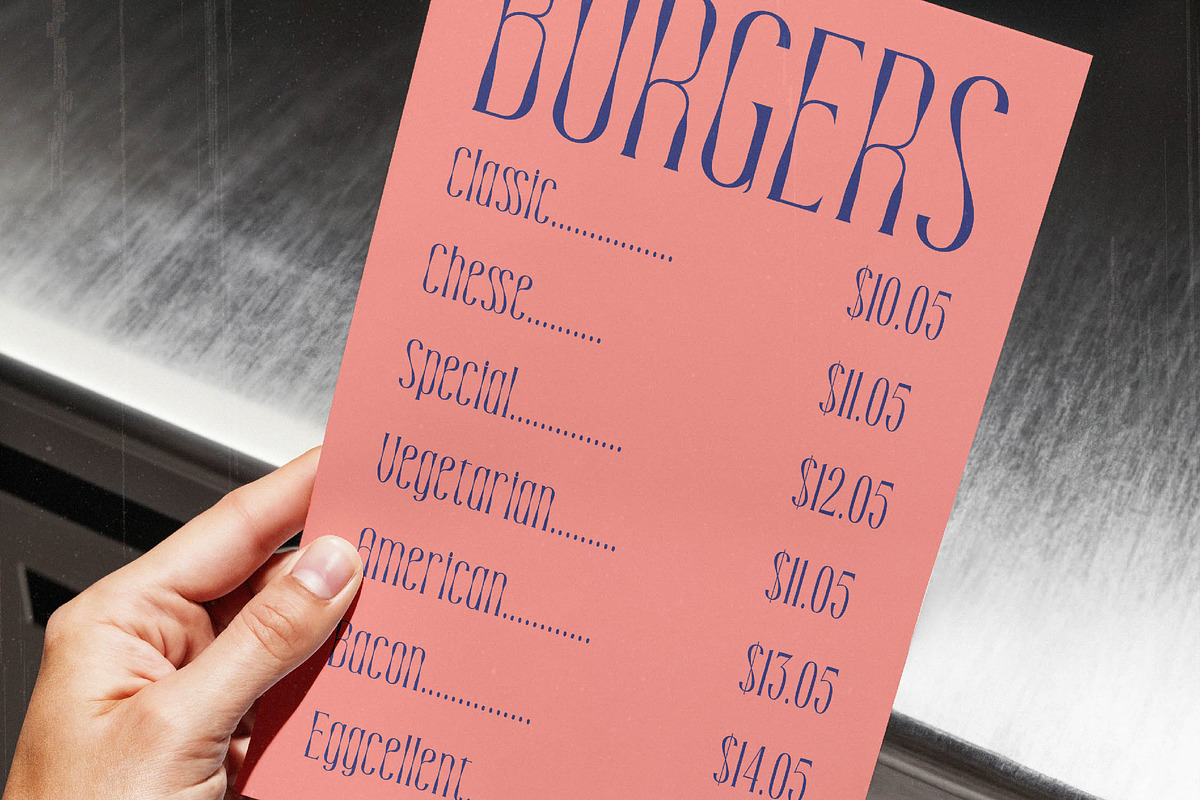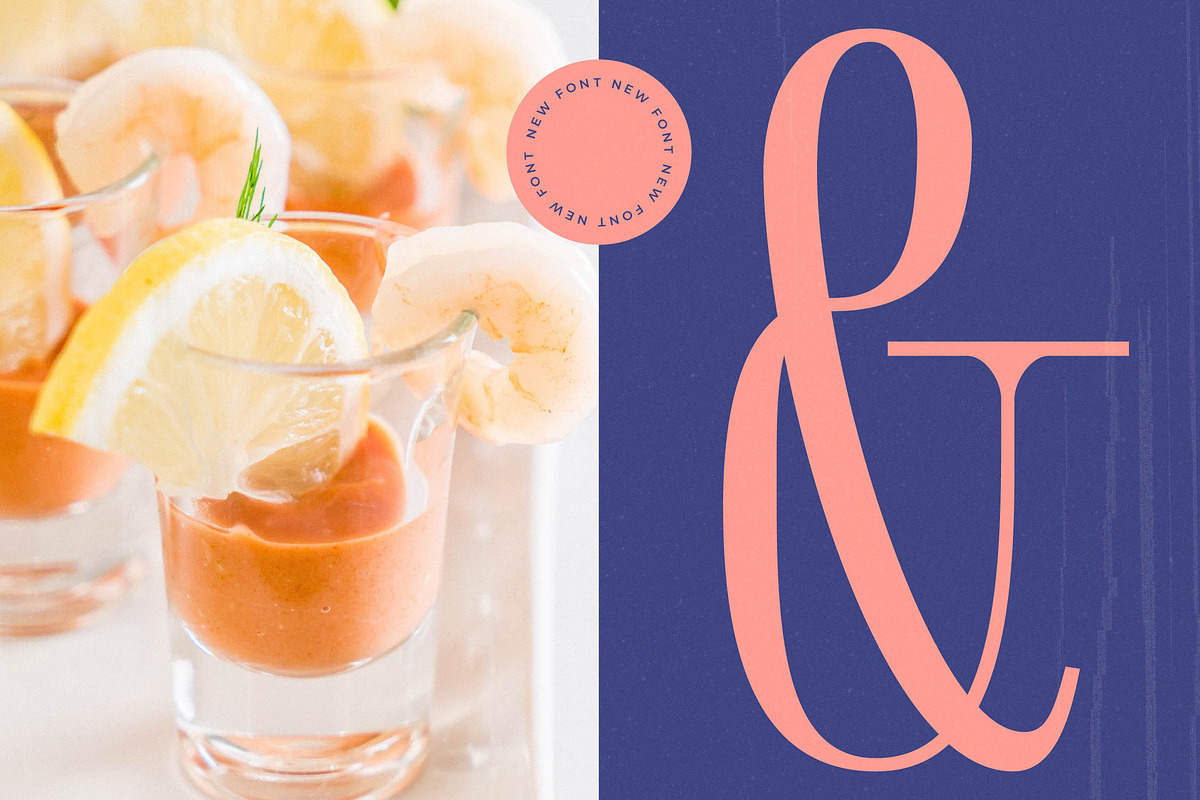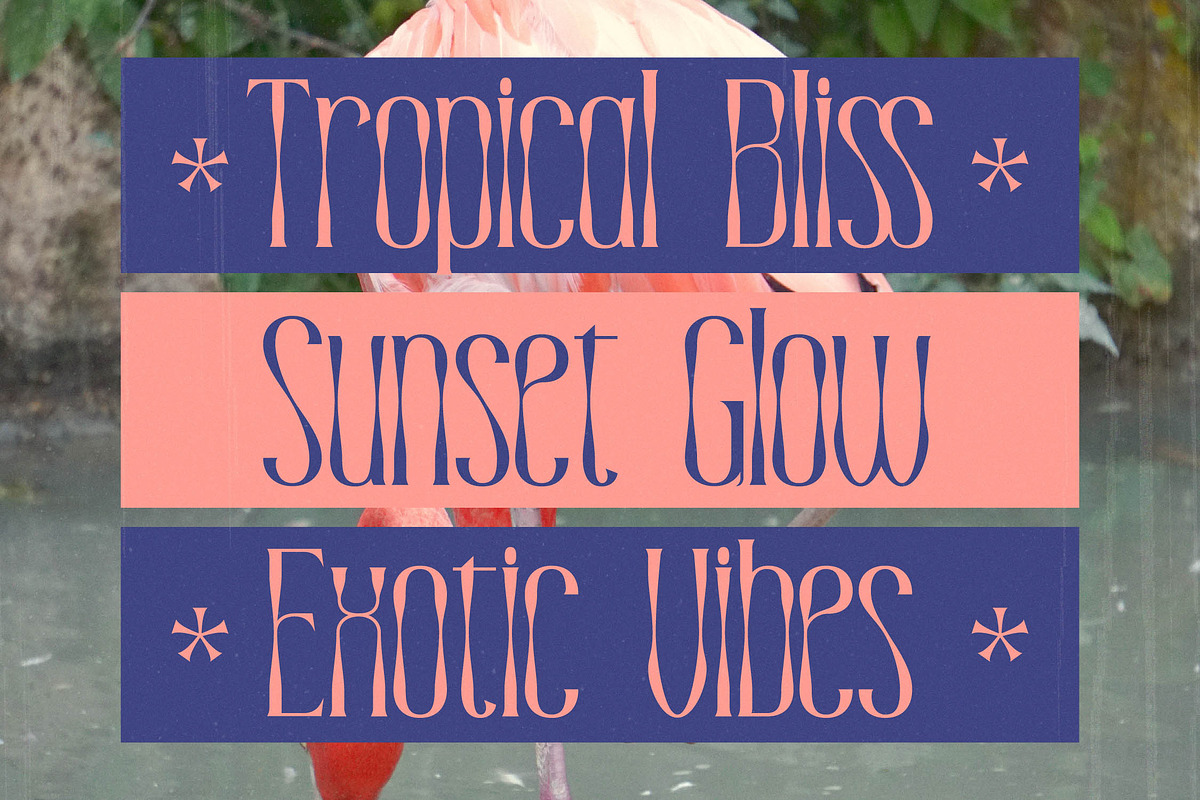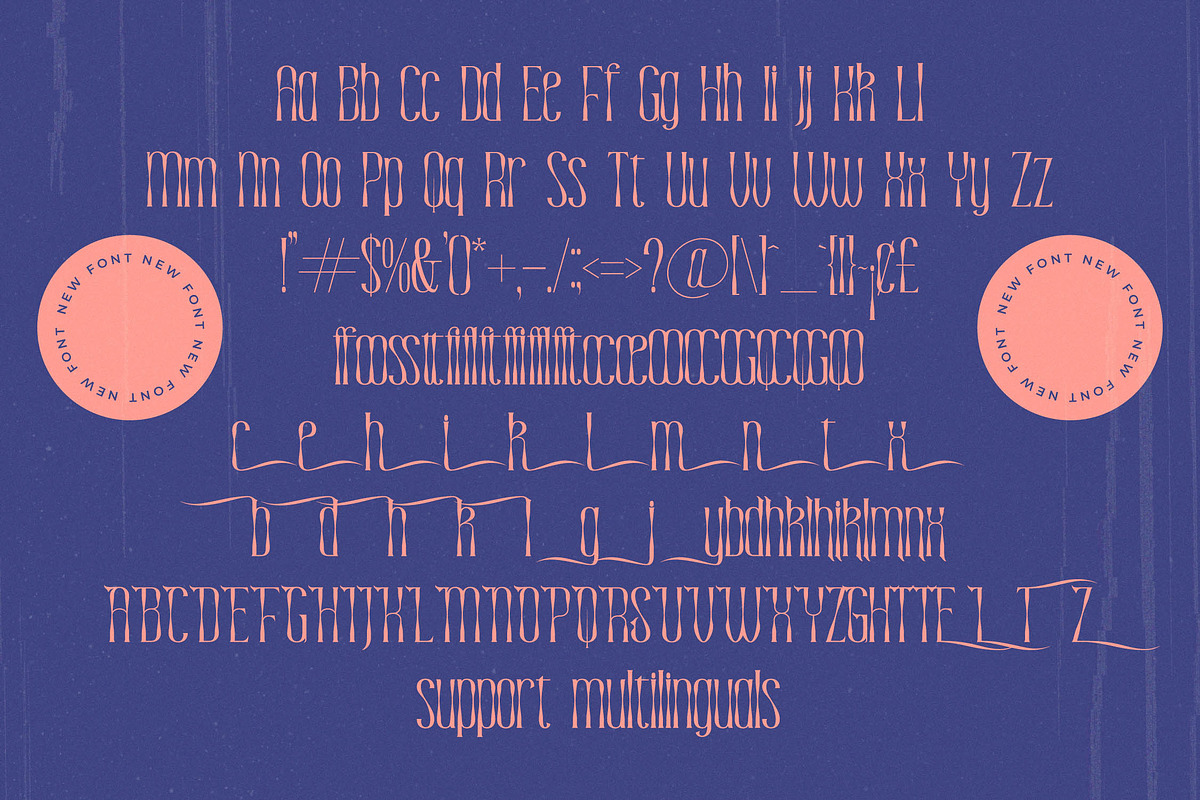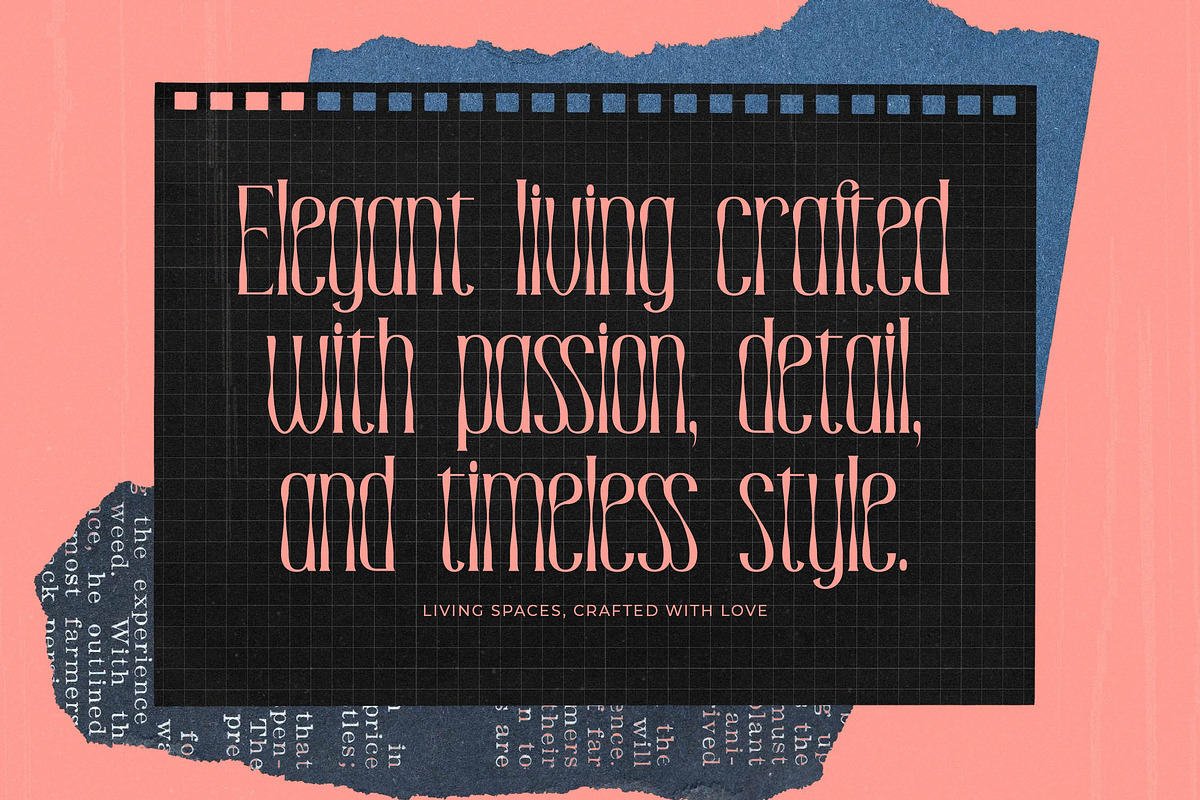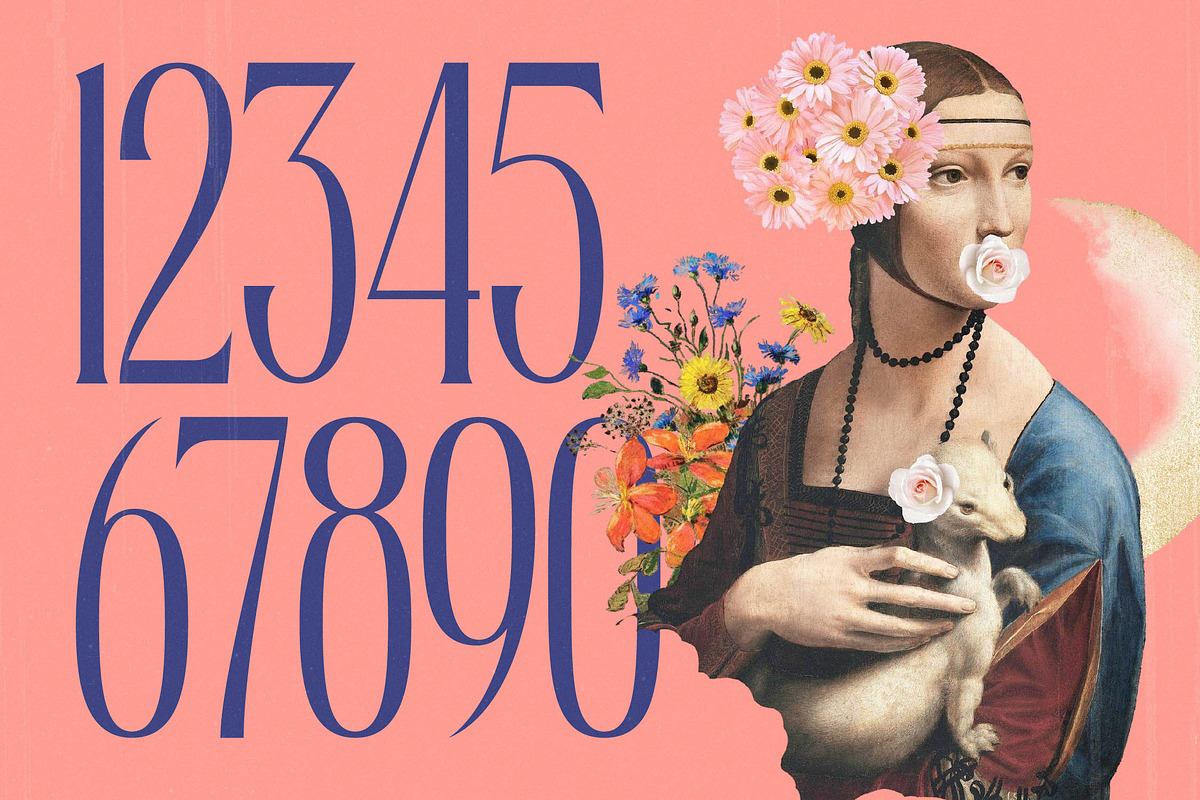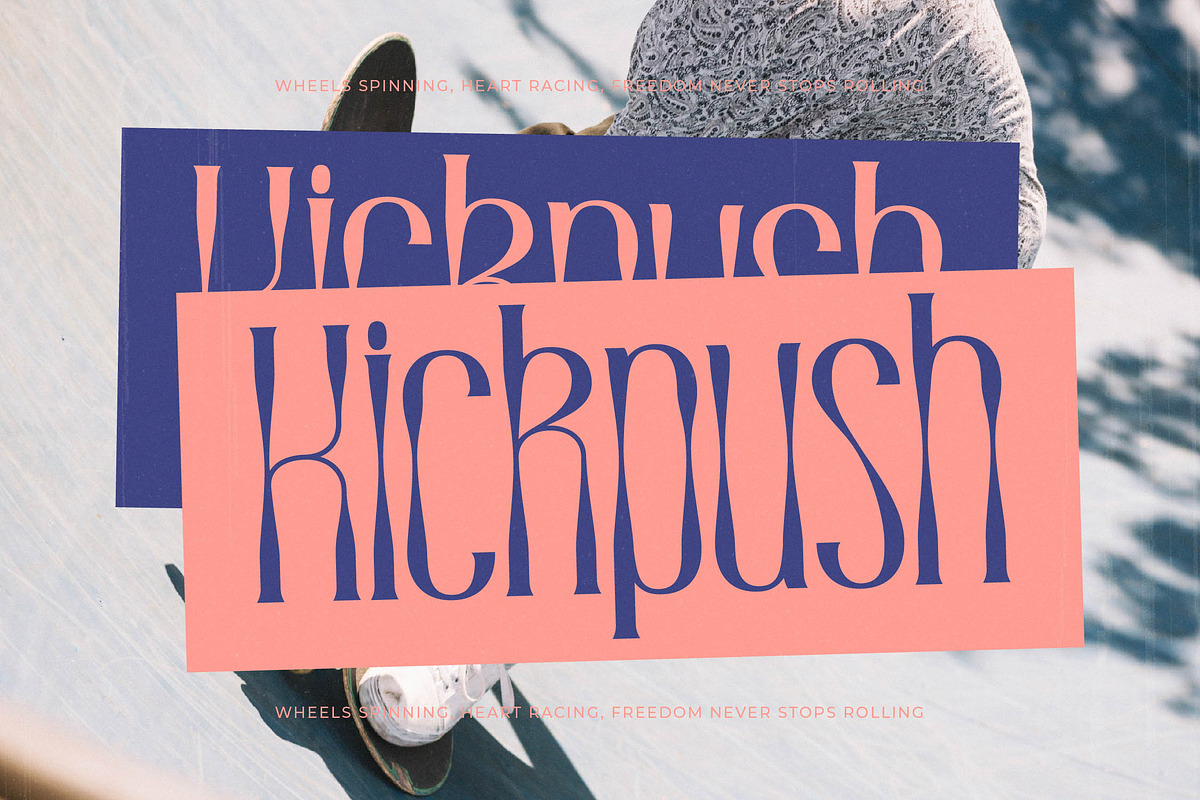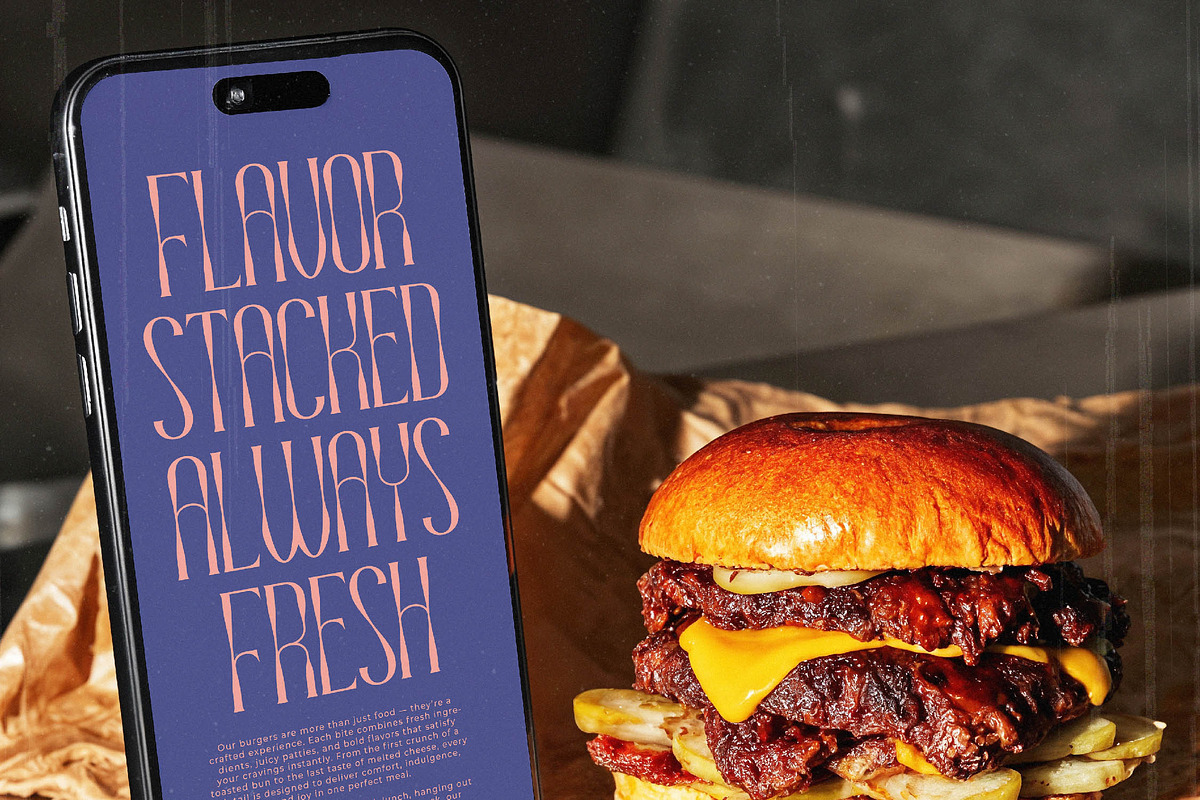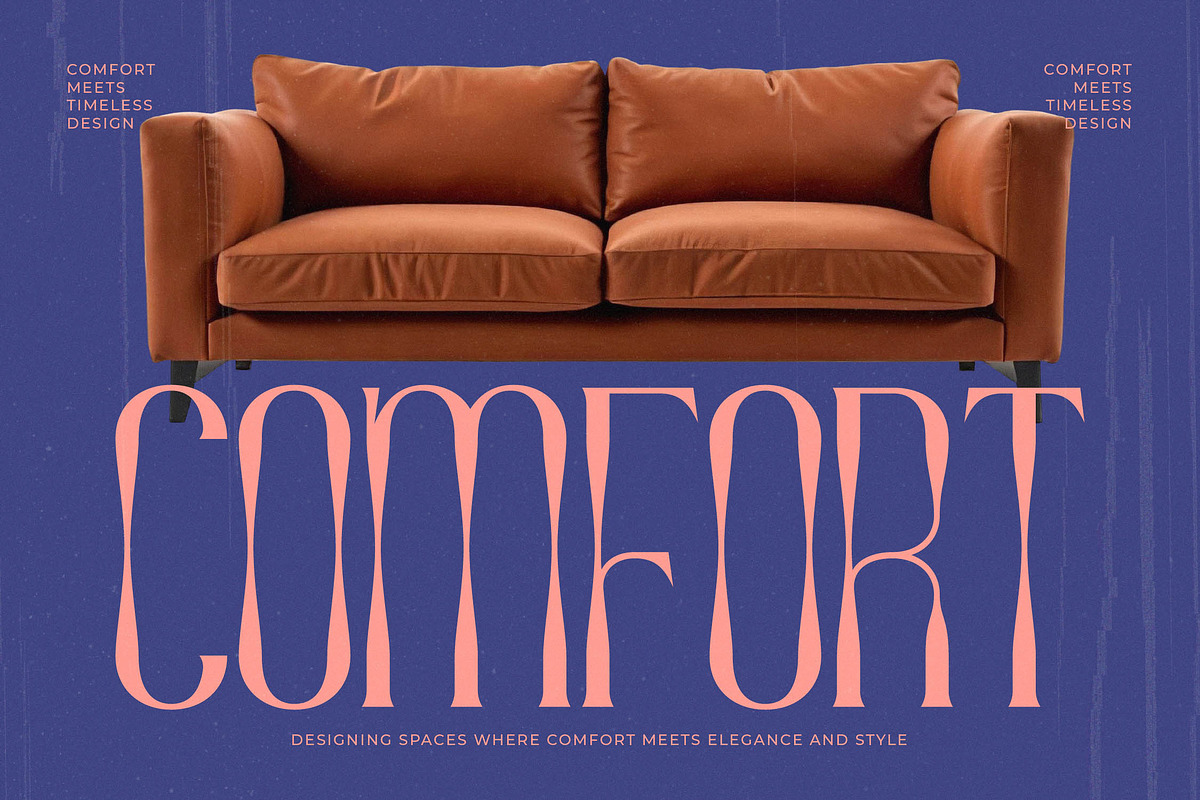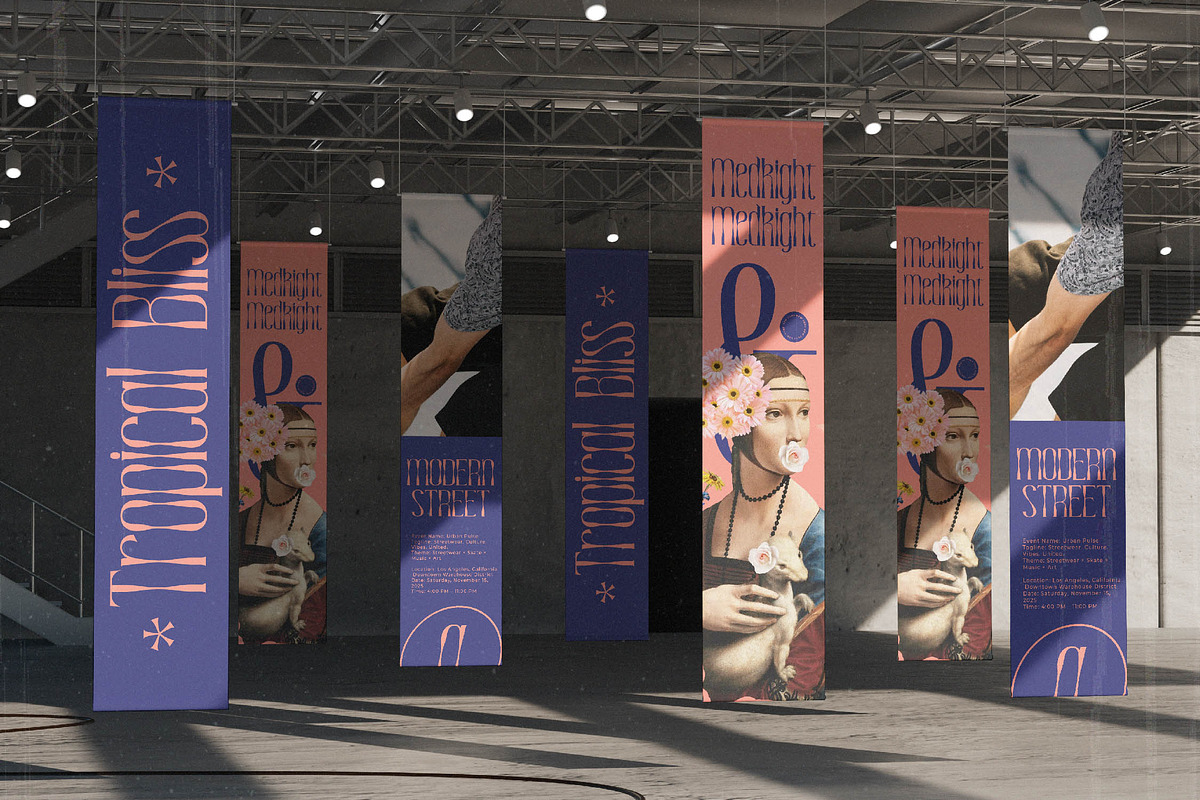
Medkight Modern Editorial Serif
Step into a world of surreal elegance and timeless beauty with Medkight, a font that redefines the boundaries of classical grace. This typeface captures a hauntingly beautiful aesthetic that commands attention the moment it hits the page.
Inspired by the delicate fusion of Renaissance portraiture and avant-garde surrealism, this font draws its soul from the juxtaposition of historical art and modern distortion. The elongated stems and ethereal curves evoke a sense of dreamlike wonder, making it more than just a typeface—it is a visual narrative.
Every character in this modern serif display exudes a sense of luxury typography that is perfect for high-end projects requiring a high-contrast serif. As an editorial font, it offers a massive branding impact through its unique verticality and artistic tension.
Perfectly aligned with the current modern serif trend, this typeface meets the demand for editorial display fonts that break away from traditional norms. Designers looking for character-driven typography will find this font to be an essential tool for creating distinct, memorable visual identities.
This versatile typeface is the ultimate choice for sophisticated logo design and high-concept branding identities. Whether you are working on high-fashion editorial spreads, premium packaging, bespoke wedding invitations, or fashion lookbooks, it brings an unmatched level of sophistication.
The package is rich with creative possibilities including over 62 unique ligatures and alternates that allow for custom-tailored layouts. It also features expressive swashes, comprehensive multilingual support, and a full set of international characters across two distinct styles.
- Ligature 18 Alternate 62